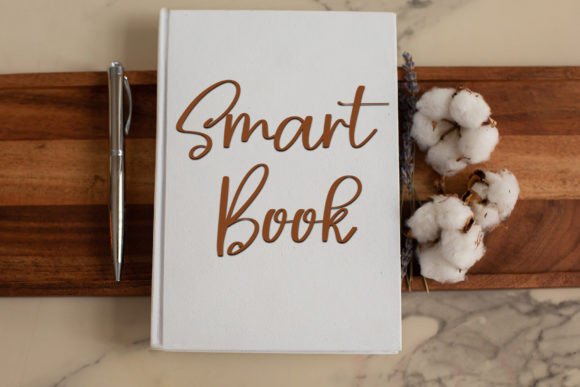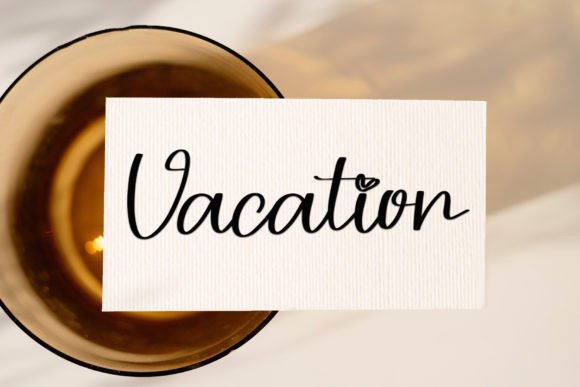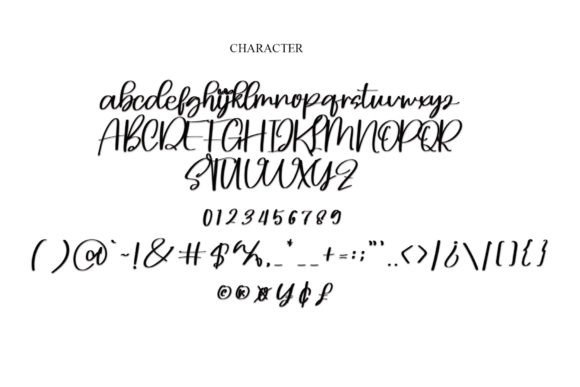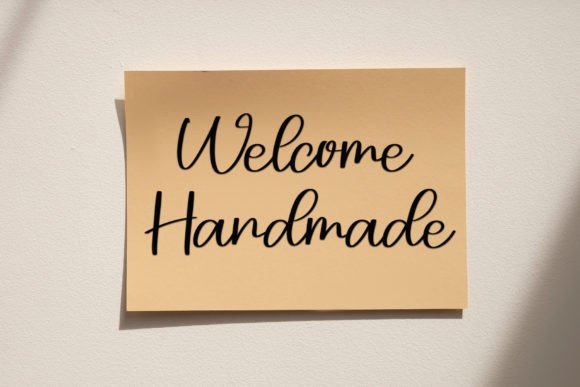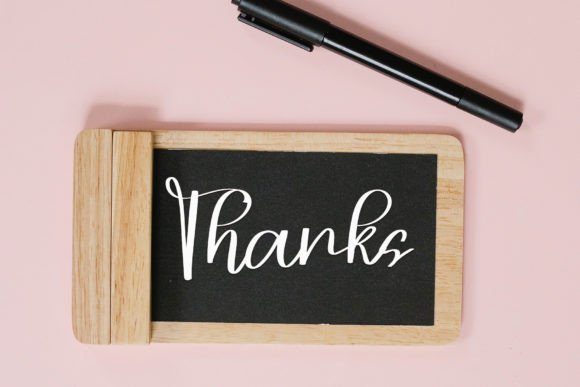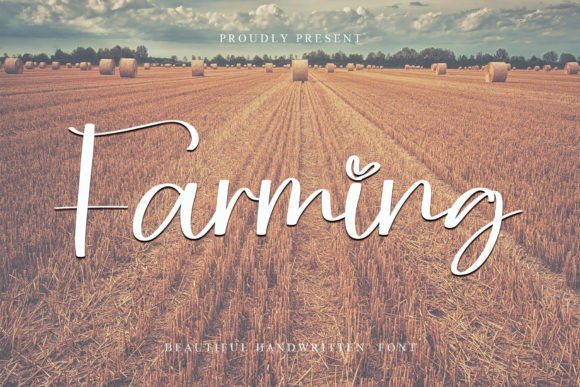
Farming Font: Add a Touch of Romance to Your Designs
Farming is an enchanting handwritten font that has captured the hearts of designers and crafters alike. This versatile script font has a wide spectrum of applications, ranging from greeting cards to headlines, and is guaranteed to add a romantic feel to your next project. In this article, we’ll dive into the world of Farming Font, exploring its features, uses, and benefits, as well as provide tips on how to make the most of this beautiful font.
What is Farming Font?
Farming Font is a handwritten script font that exudes a sense of warmth and elegance. Its flowing lines and delicate strokes evoke a feeling of romance and whimsy, making it perfect for designs that require a personal touch. The font’s versatility lies in its ability to be used in a variety of contexts, from formal to informal, and its legibility ensures that it can be used for both headings and body text.
Features of Farming Font
- Handwritten script font: Farming Font has a unique, handwritten feel that sets it apart from other fonts.
- Versatile: Suitable for a wide range of applications, including greeting cards, headlines, posters, and more.
- Romantic feel: Adds a touch of elegance and whimsy to any design.
- Legible: Easy to read, making it perfect for both headings and body text.
Uses of Farming Font
Farming Font can be used in a variety of design projects, including:
- Greeting cards: Add a personal touch to your greeting cards with Farming Font’s elegant script.
- Headlines: Use Farming Font to create eye-catching headlines for your blog posts, articles, or advertisements.
- Posters: Create beautiful posters for events, promotions, or announcements with Farming Font.
- Branding: Use Farming Font to create a unique and memorable brand identity.
Benefits of Using Farming Font
Using Farming Font in your designs offers several benefits, including:
- Uniqueness: Farming Font’s distinctive style sets it apart from other fonts, ensuring your designs stand out.
- Emotional connection: The font’s romantic feel helps create an emotional connection with your audience.
- Flexibility: Farming Font can be used in a variety of contexts, making it a versatile addition to your font library.
Tips for Using Farming Font
To get the most out of Farming Font, follow these tips:
- Pair with complementary fonts: Combine Farming Font with sans-serif fonts for a striking contrast.
- Use for headlines and titles: Take advantage of Farming Font’s elegance and use it for headlines and titles.
- Experiment with colors: Try pairing Farming Font with pastel colors or bold hues to create a unique look.
Farming Font is a beautiful, versatile script font that can add a touch of romance to your designs. With its unique features, wide range of uses, and benefits, it’s no wonder that designers and crafters love working with this font. By following the tips outlined in this article, you’ll be able to make the most of Farming Font and create stunning designs that capture the hearts of your audience.